25 Top Carnival Fonts (Best Circus Fonts for a Carnival Aesthetic)
What is a good font for carnival-themed projects? If you're looking for carnival lettering or the perfect circus font, check out this list. You'll find all kinds of carnival fonts, from vintage to bold, ornate to a little spooky. Download the perfect carnival font for your project today!
Top Carnival Fonts to Download Now
1. Mogicz Old Serif Carnival Font (OTF, TTF)
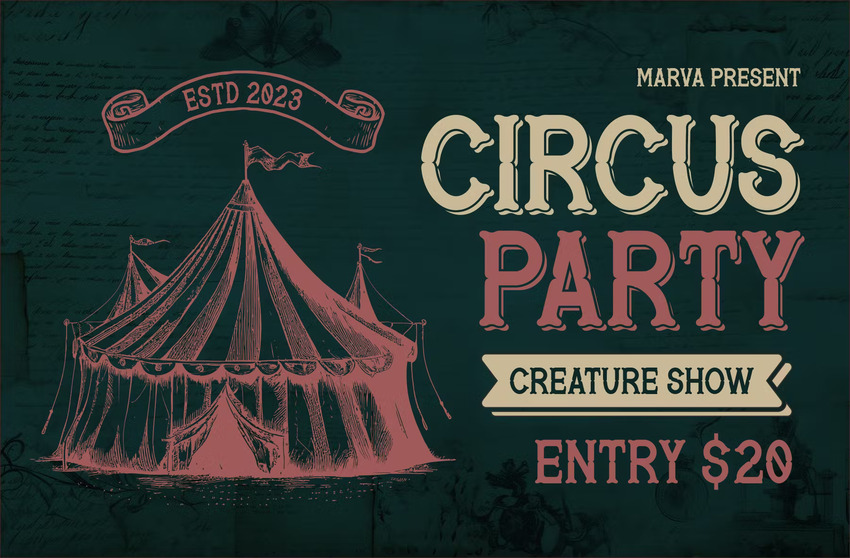
Try Mogicz for a spooky, vintage circus aesthetic. It features uppercase and lowercase letters, ligatures, and alternates. There's also multilingual support available. It's one of the best carnival fonts for horror projects.
2. Shoebox Circus Font (OTF, TTF, WOFF1, WOFF2)
Here's one of the most elegant circus typefaces. Its flawless design evokes a vintage vibe with plenty of nostalgia. Enjoy uppercase letters, numbers, and punctuation.
3. Jester Jumble: Fun Carnival Typography (OTF, TTF)
This clown-themed typeface ranks as one of the best circus fonts. Achieve the carnival aesthetic all the way using this easy-to-install typeface. You'll get uppercase, lowercase, numbers, and punctuation characters.
4. Boldin Carves: Vintage Carnival Fonts (OTF, TTF)
What could be better than a 3-in-1 font pack? Find three styles of the same carnival text font: basic, strip, and grunge. You'll get uppercase and lowercase characters, numbers, and punctuation for each style.
5. Disc House Carnival Font (OTF, TTF)
Looking for playful circus typefaces? Disc House may be just for you. It uses characters made of light bulbs, and it's based on a simple grid. It's a perfect choice for achieving the carnival aesthetic.
6. After Party: Bevel Carnival Text Font (OTF, TTF, WOFF, WOFF2)
Bring life to your carnival-themed design with circus fonts like After Party. Enjoy uppercase and lowercase characters, as well as symbols, punctuation, numbers, ligatures, and alternates. It's a fun and unique example of circus typography that you can't overlook!
7. Circus Freak Carnival Lettering (OTF)
This bold display font is certainly an eye-catching choice. Use it for headlines and titles to really command attention. Being a display font, it's best suited to larger sizes and key copy in your design. To really key into the circus aesthetic, consider pairing it with other retro fonts.
8. Greatest Circus Display Font (OTF, TTF, WOFF)
This circus font has so many ornate extras that really contribute to the carnival aesthetic. This font download comes with four different styles you can mix, match, and layer to achieve this signature look.
9. Acrobats Carnival Font (OTF, TTF, WOFF)
Here's a cleaner carnival font. It has decorative serifs that help lend to the overall carnival look and feel. However, it's less ornate, so it's a strong choice if you're looking for something with a circus vibe, but not necessarily with some of the extra details we often see in this aesthetic.
10. Carnifun Horror Circus Font (OTF, TTF, WOFF)
You get three different formats in this carnival fonts bundle. It's a darker twist on the typical carnival font, so it's perfect for horror or Halloween-related projects. It'll add a vintage look to your designs.
11. Sirkusity Circus Font (OTF, TTF, WOFF)
Here's a really ornate display font, perfect for circus-themed projects. It's in all caps, so it's perfect for things like titles and headlines. Use it for key copy in your design, and consider pairing it with a typeface that has similar serifs but fewer decorative elements. Ornate is very much on point for this aesthetic, however!
12. Quflar Display Circus Font (OTF, TTF)
This unique display font is such a fun take on the circus font look and feel. Instead of the Western-like serifs we might expect to see, the ends of this font are rounded. The ornate interiors are so stylish and unusual—this is a great choice if you're looking for a unique circus font.
13. The Circus Show Display Font (OTF, TTF, WOFF)
The curled serifs in this carnival font are such a fun take on the aesthetic. It's a long, all-caps display font, and it has seven different styles you can experiment with. For example, go with the dotted interiors, lined letters, outlines, and more.
14. Jocker Vintage Circus Font (OTF, TTF)
This beautiful vintage serif font has so much potential. Look at how well it layers, as we see in this example. Or keep it clean and thin, without any extras. It could be perfect for a project with a vintage circus aesthetic, but it also works well for other retro-themed content.
15. Freakshow Spooky Circus Font (OTF, TTF)
Maybe your circus or carnival-themed project has Halloween undertones. In that case, maybe mismatched circus fonts like this one could work really well for you. There's lots of variation in the letters, so this one would be best suited for titles or the focal point of your design.